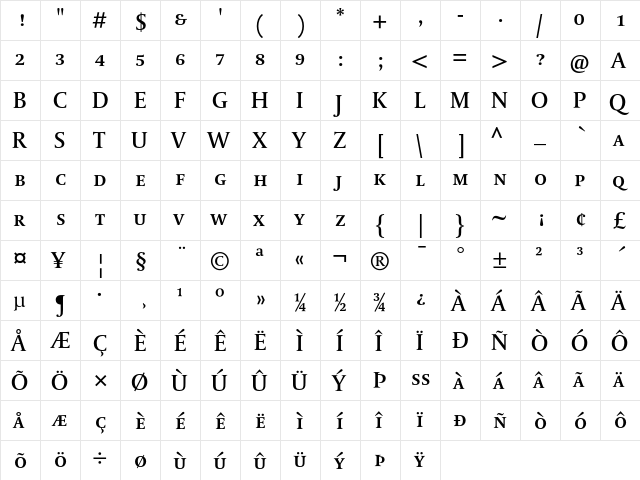
DTL Paradox T Caps Medium
Design Context for DTL Paradox Typeface
DTL Paradox is a composed and adaptable typeface that performs quietly and consistently across a wide range of design contexts.
Pro Tip: Use DTL Paradox in both headline and body roles to test its range before committing to a single application.